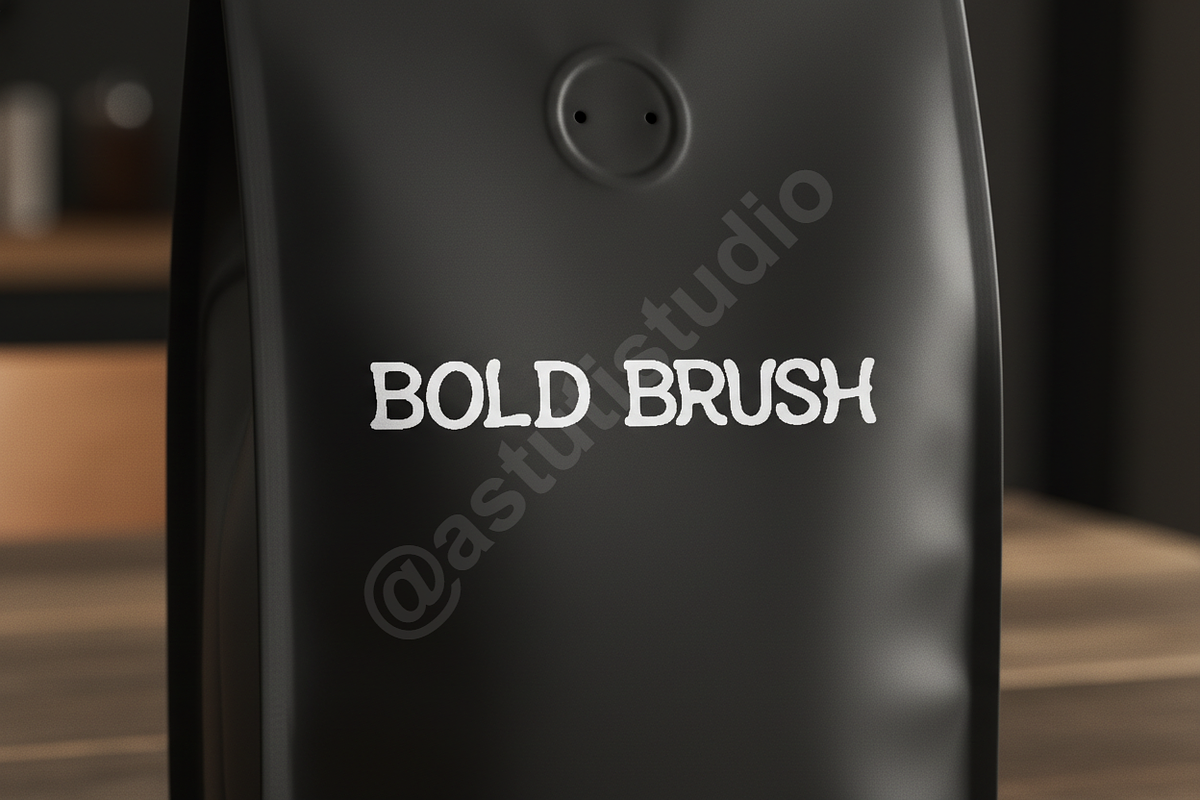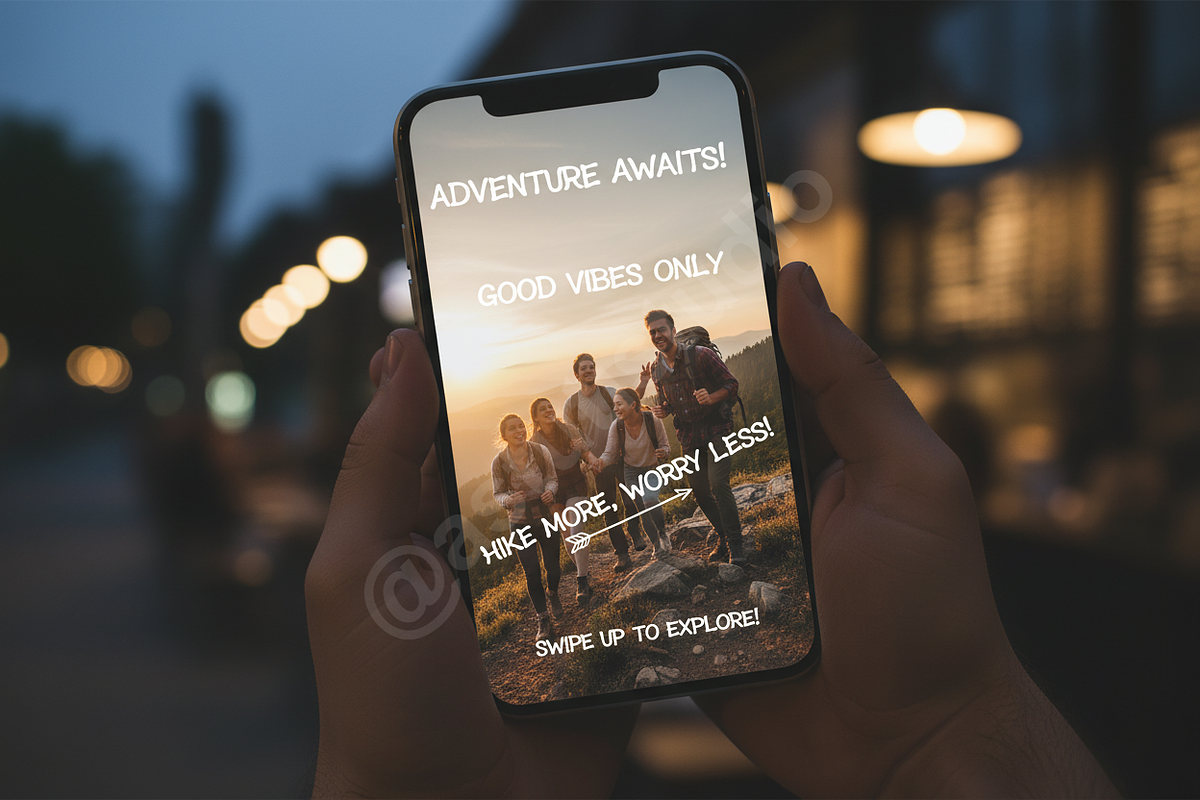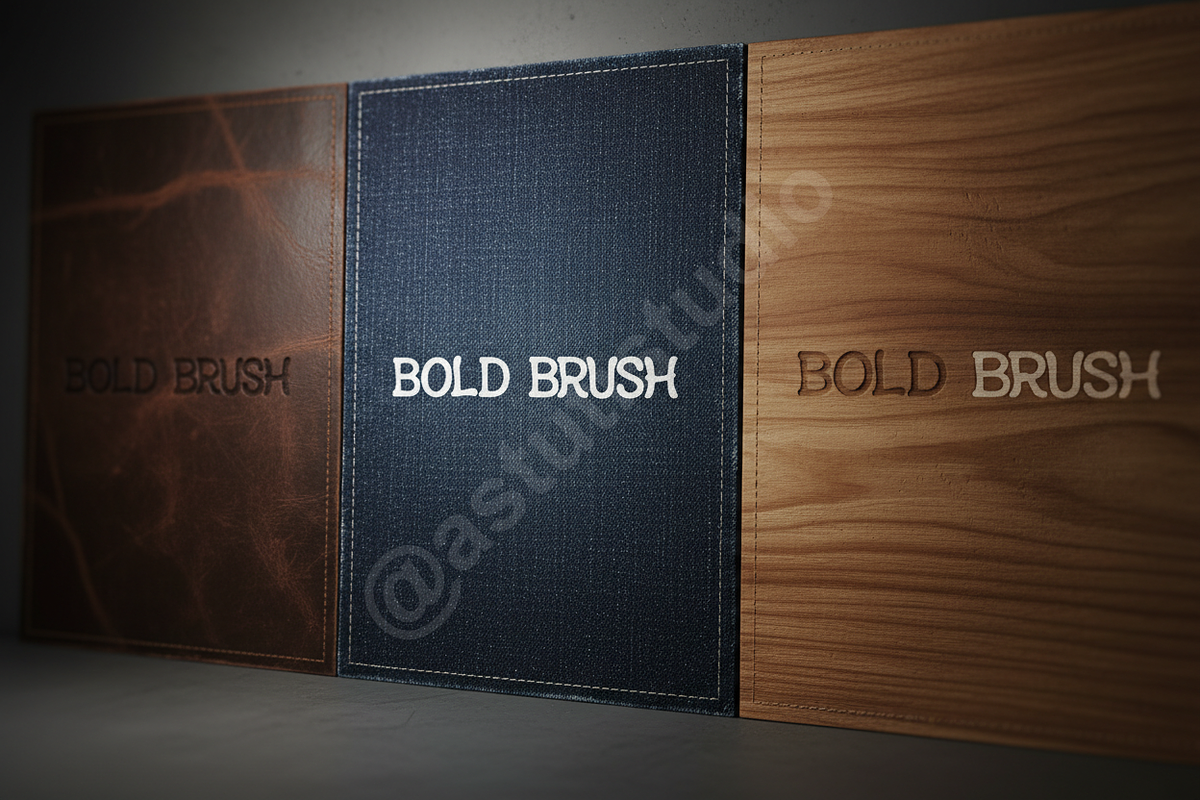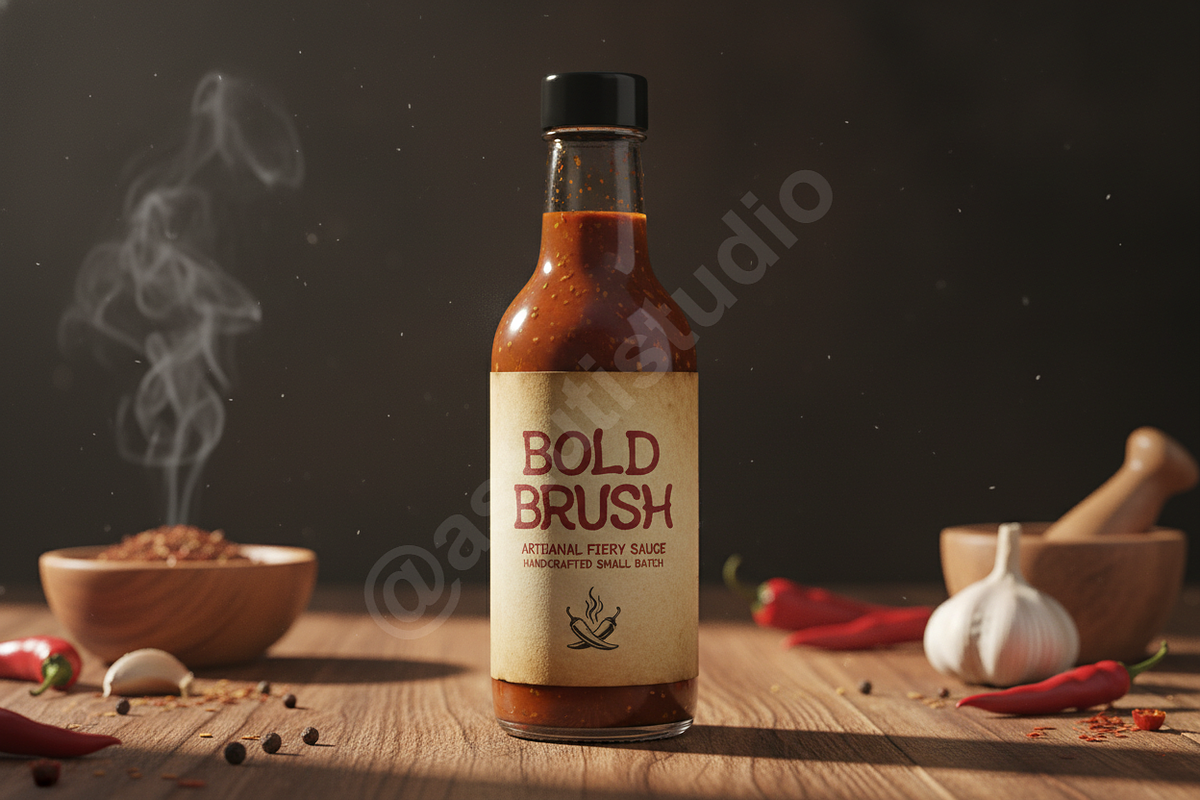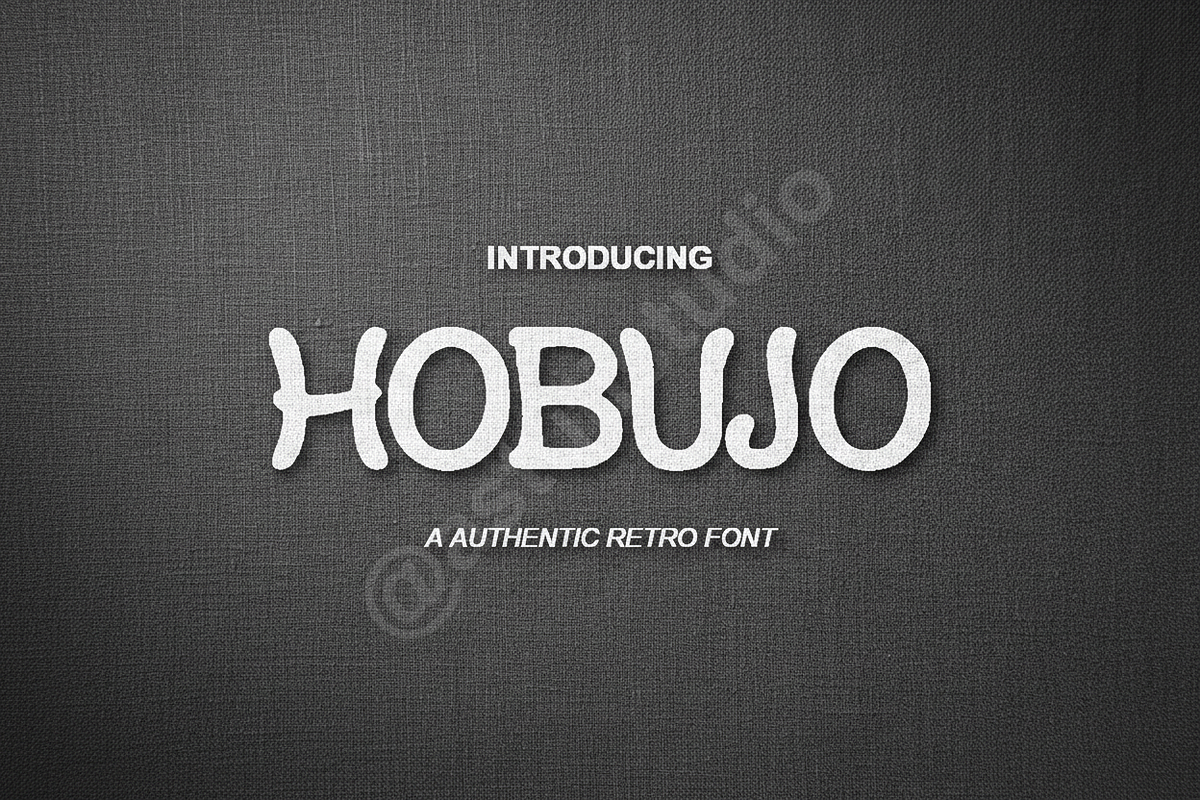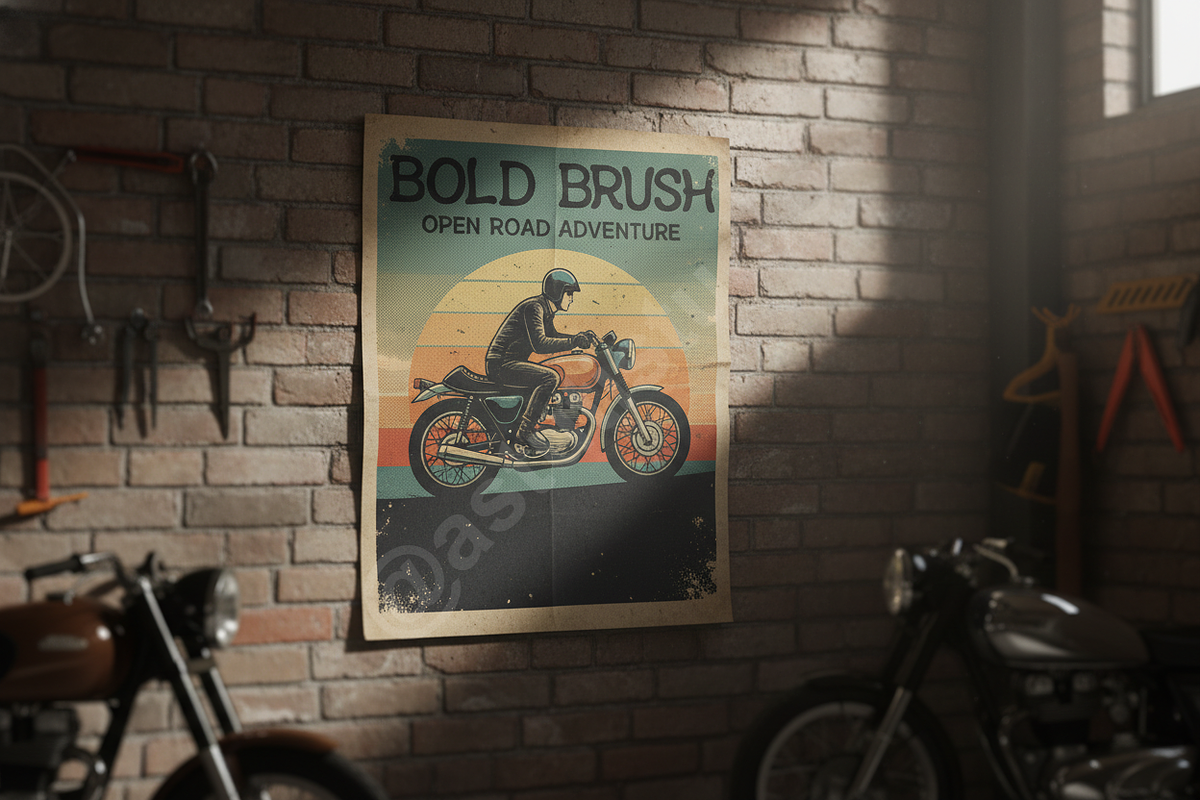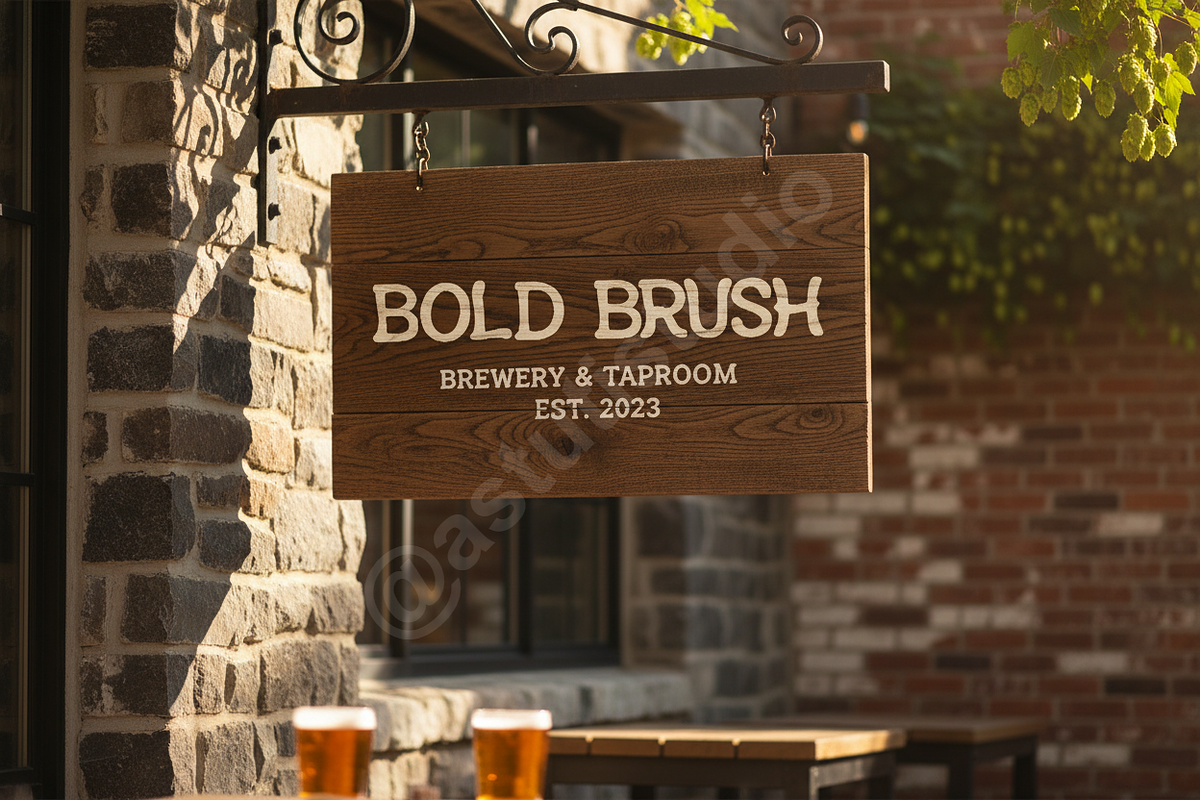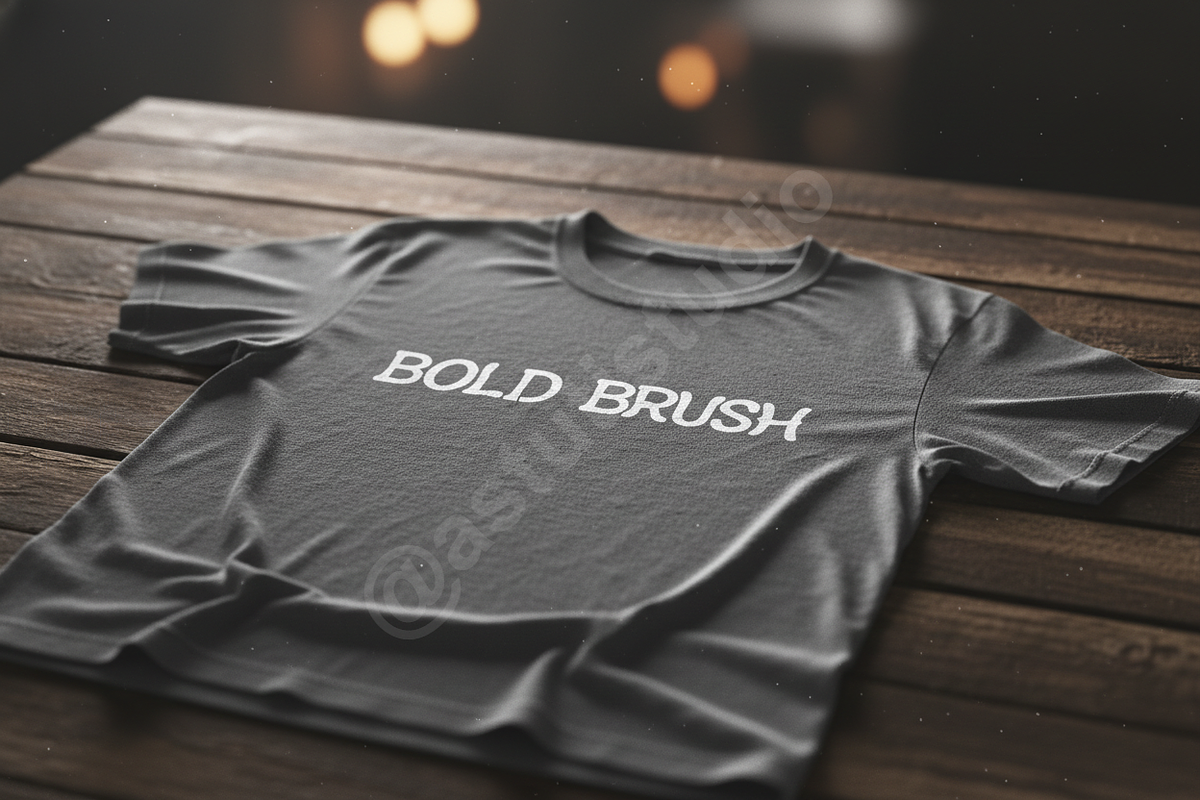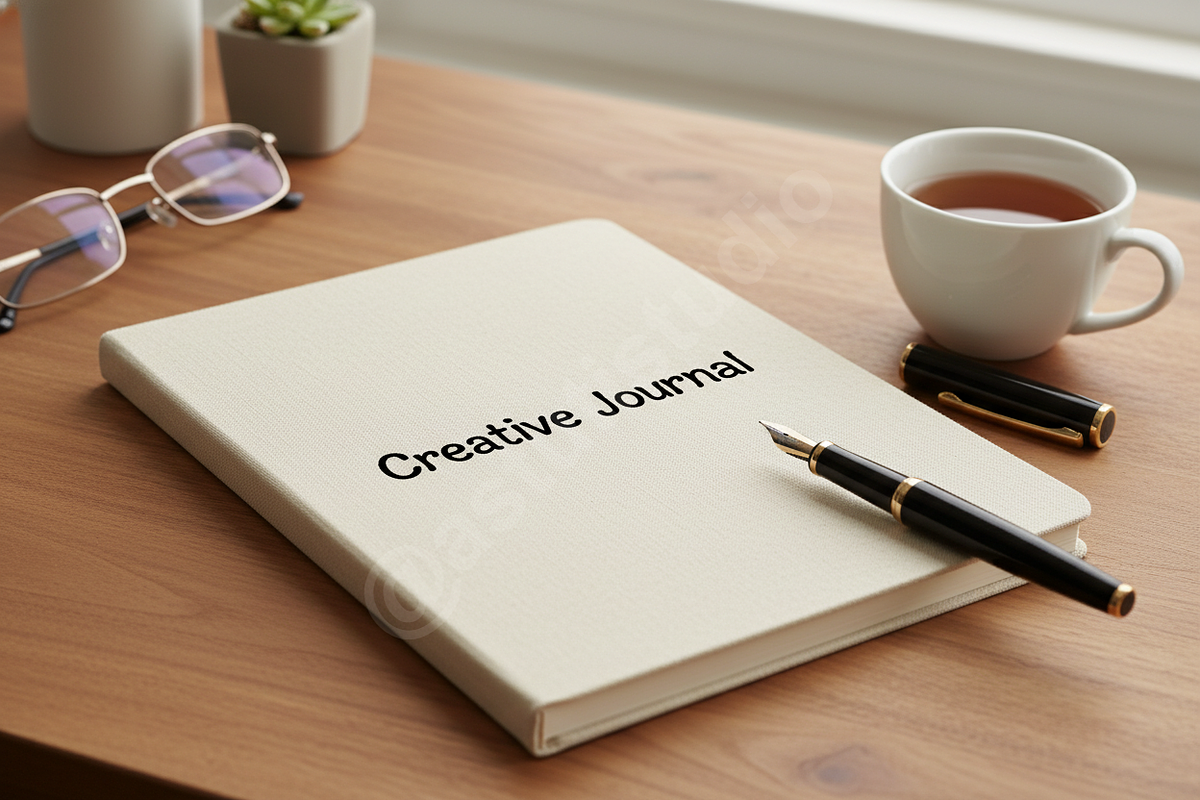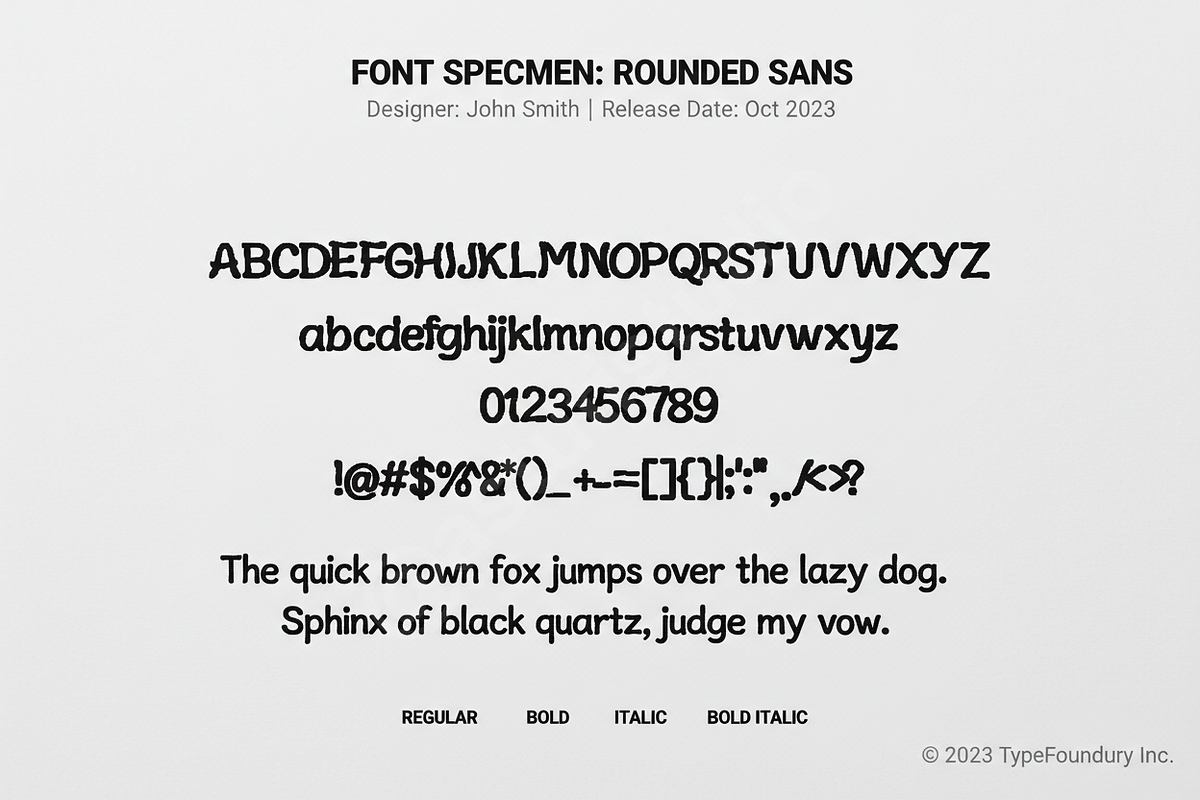
Hobujo | Premium Luxury Display Seri
INTRODUCTION Hobujo is a masterfully crafted display typeface designed to evoke a sense of refined elegance and timeless sophistication. Balancing sharp, modern terminals with graceful, flowing curves, Hobujo is an essential tool for designers operating within the high-end luxury sector. Whether you are crafting a brand identity for a boutique hotel or designing a high-fashion editorial, this font provides the premium touch required to stand out in a saturated market.
- Full uppercase and lowercase character set
- Extensive multilingual support for international reach
- Custom ligatures and stylistic alternates for unique compositions
- Precise kerning pairs for professional-grade typography
- Optimized for both print and digital high-resolution screens